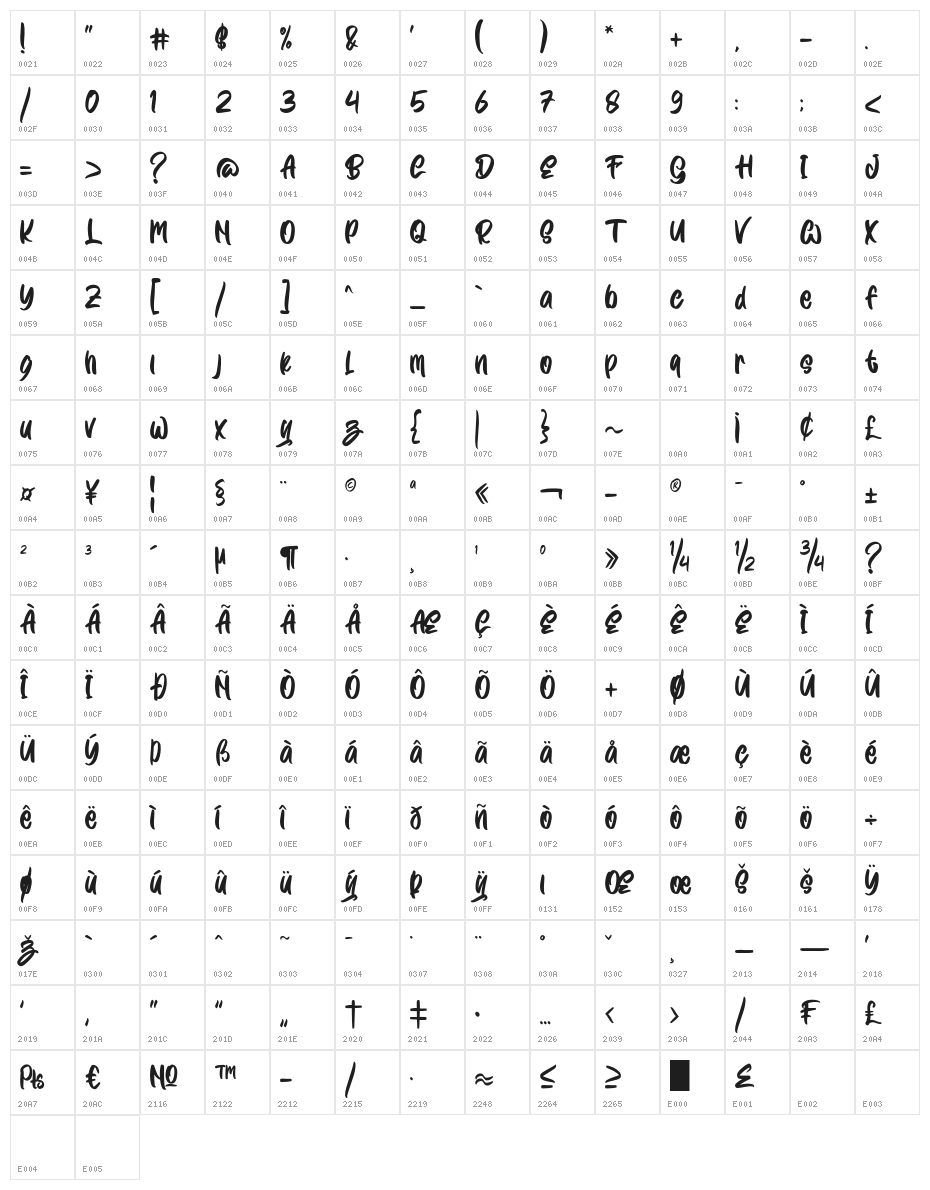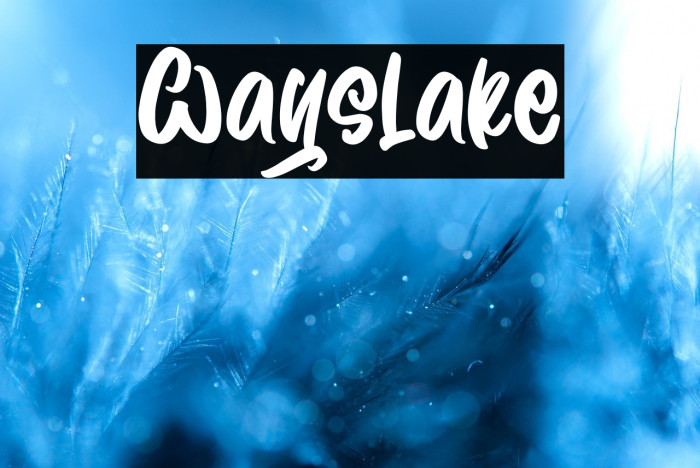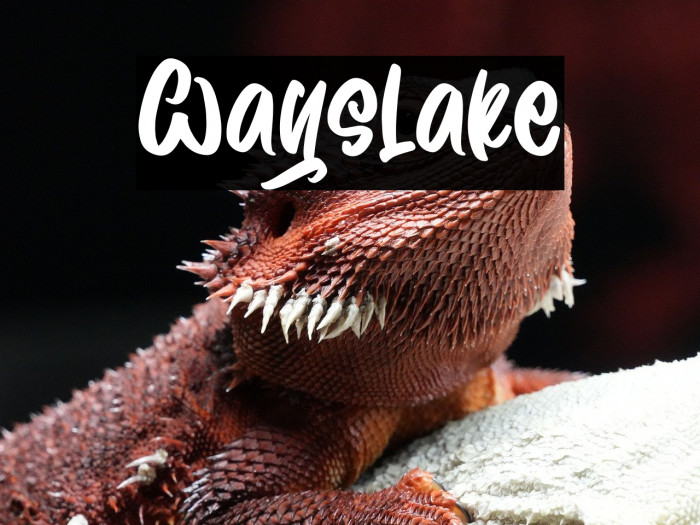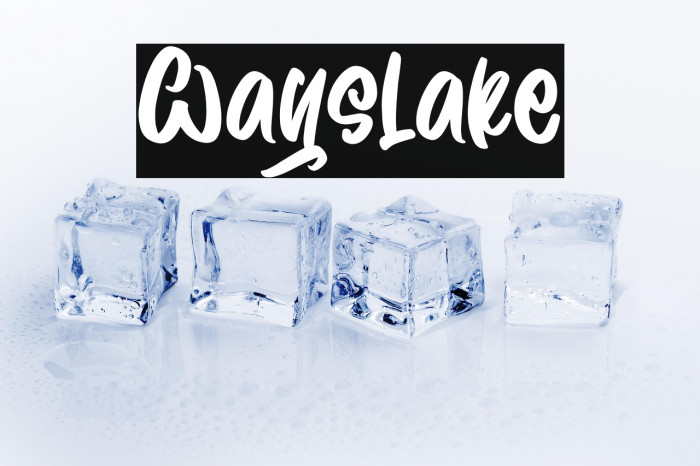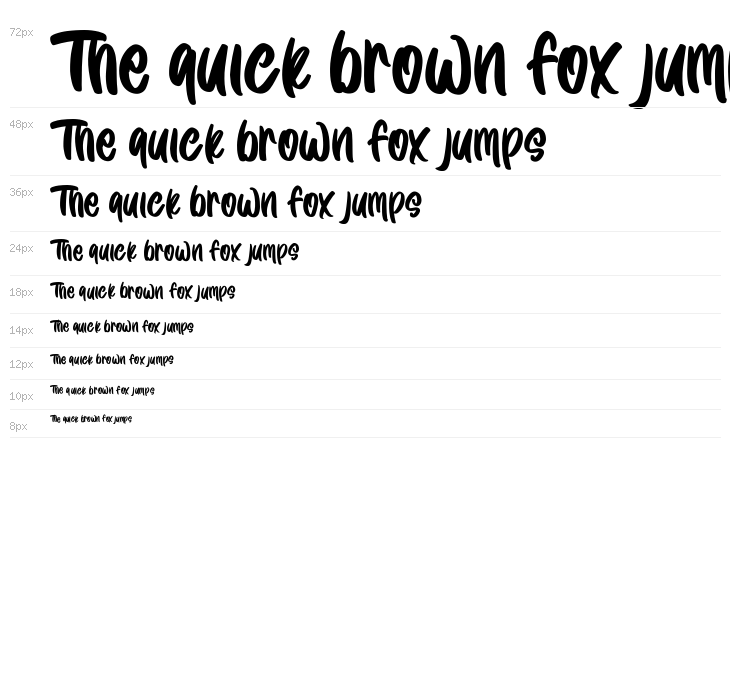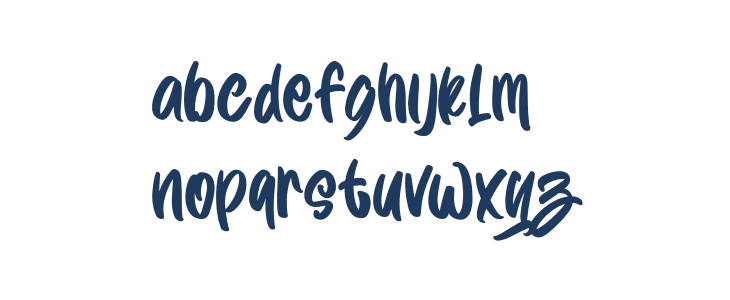
Wayslake Font
Wayslake Description
This font exudes a lively and energetic vibe with its bold, flowing strokes and playful curves. The characters are designed with a handwritten style, giving it a personal and informal touch. The uppercase letters are robust and dynamic, while the lowercase letters maintain a consistent fluidity. Numbers and special characters follow the same expressive style, ensuring uniformity across all glyphs. The overall appearance is both artistic and approachable, making it suitable for creative and casual applications.